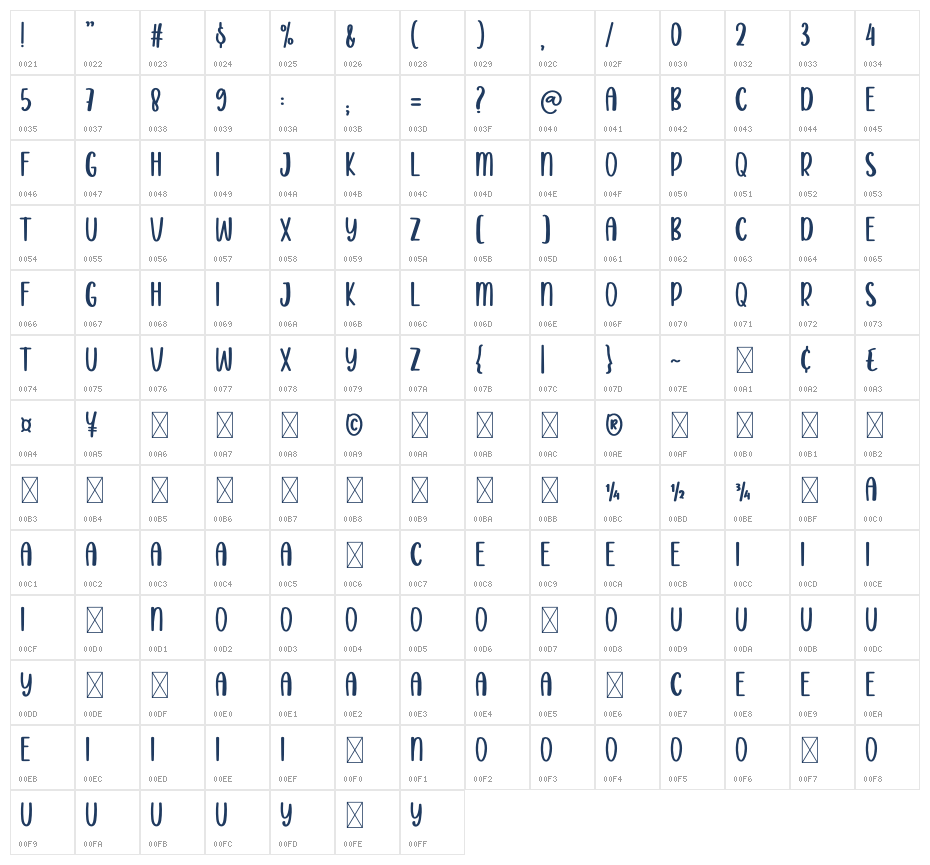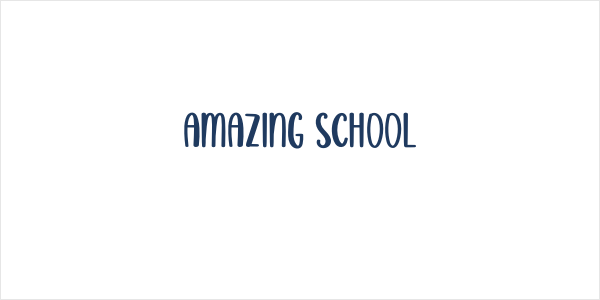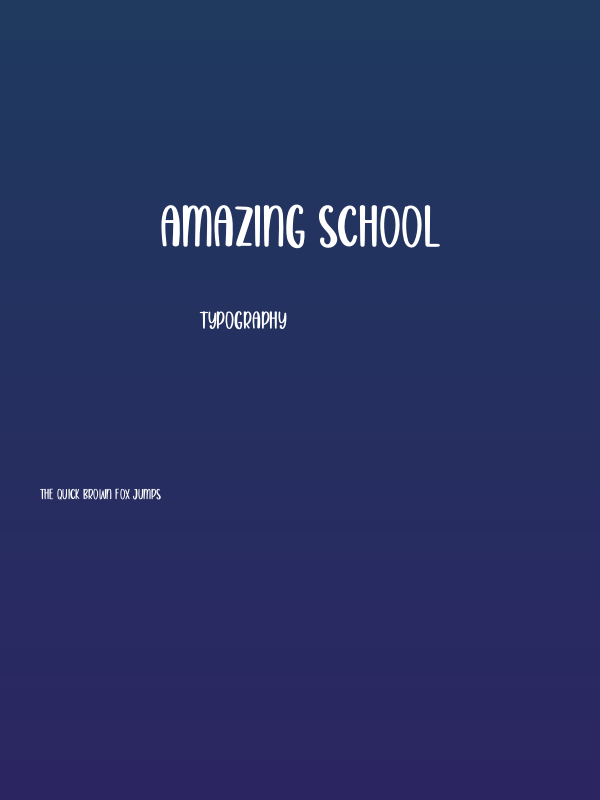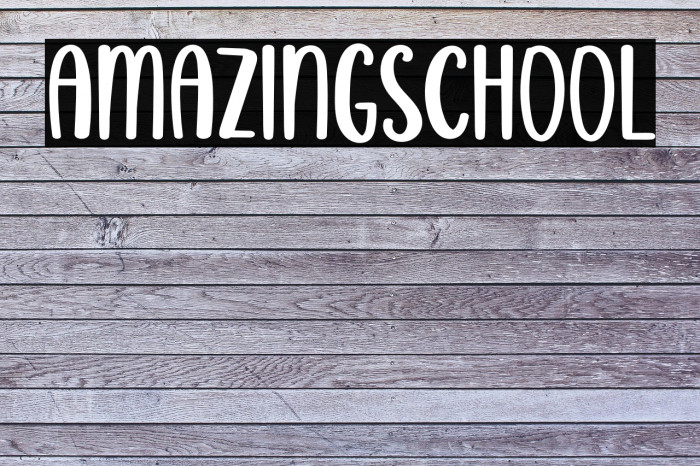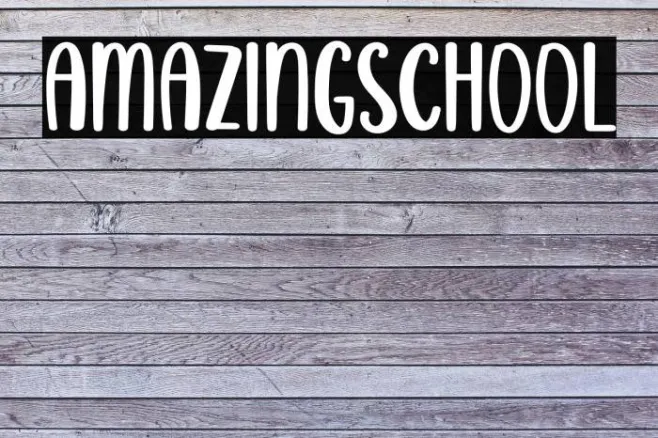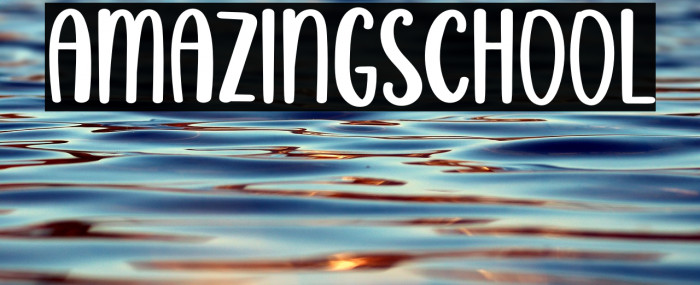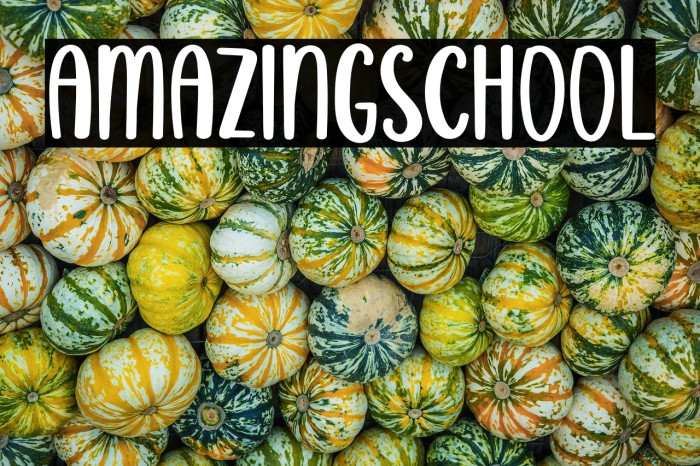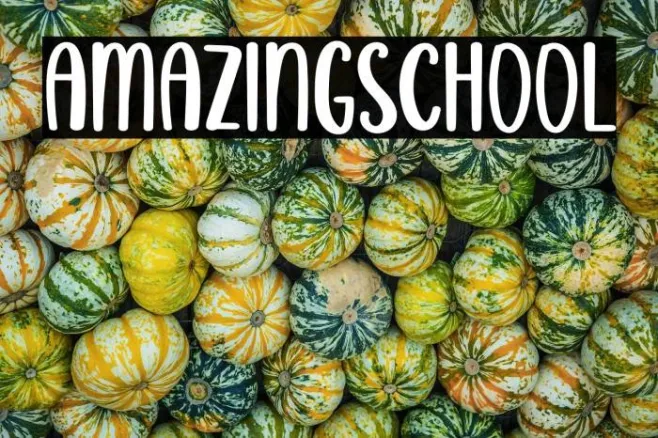
Amazing School Font
Amazing School Description
A playful, handwritten style font with rounded, irregular shapes and a casual appearance.
| Use Case | Children's books, casual branding, invitations, greeting cards. |